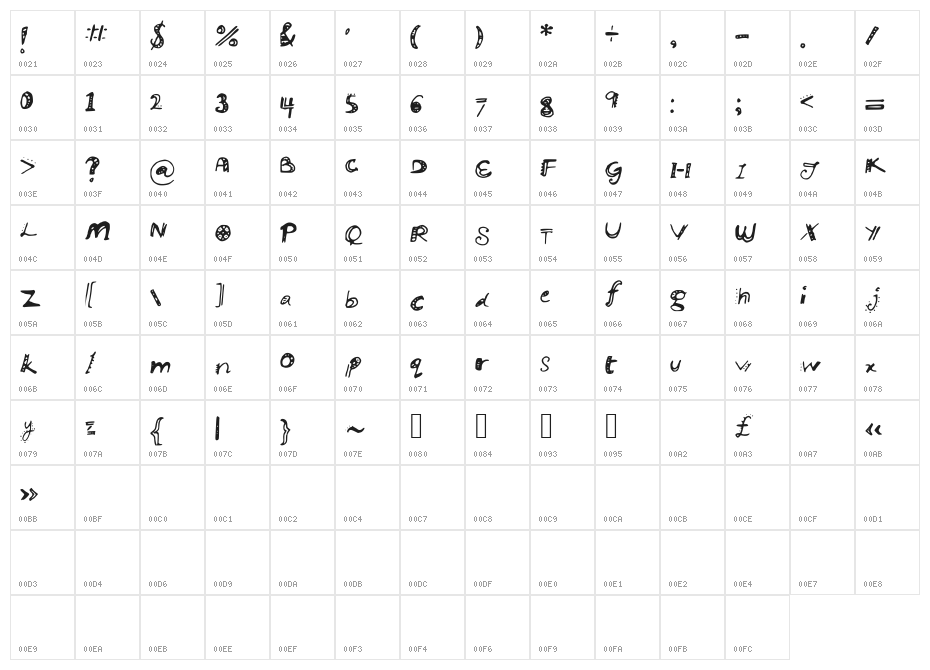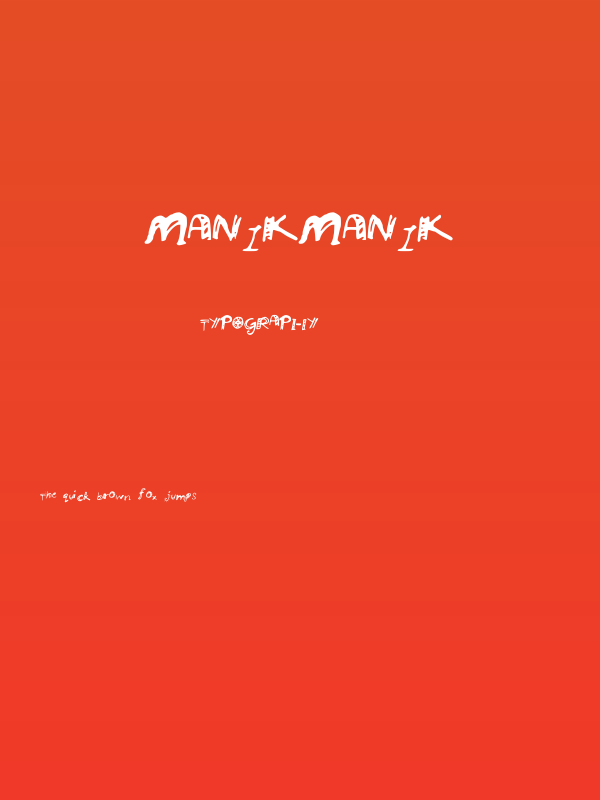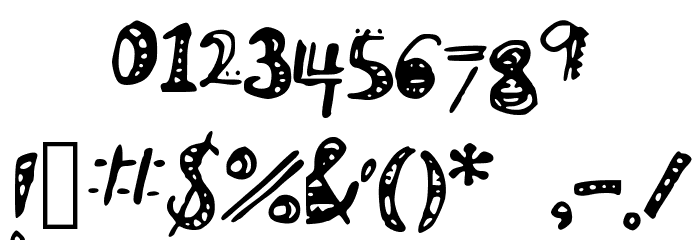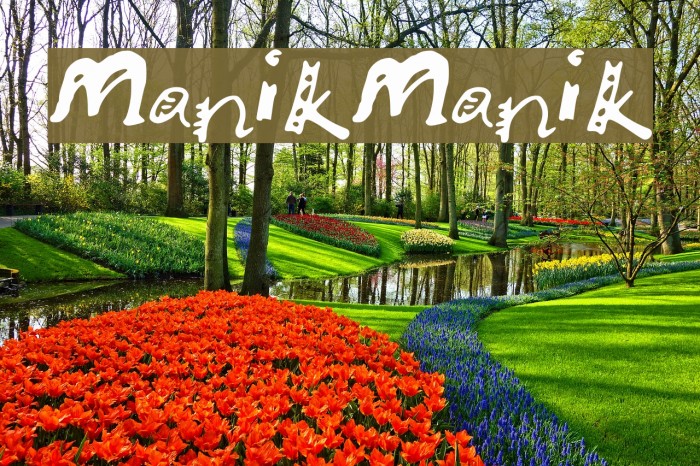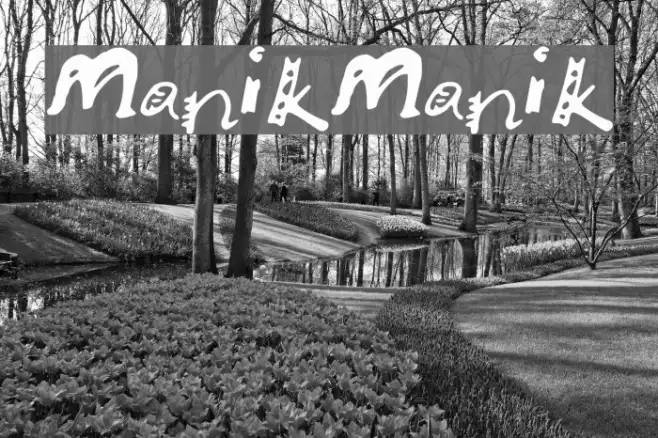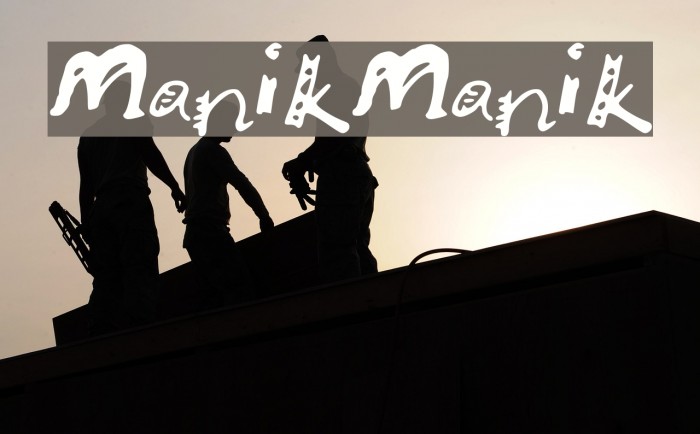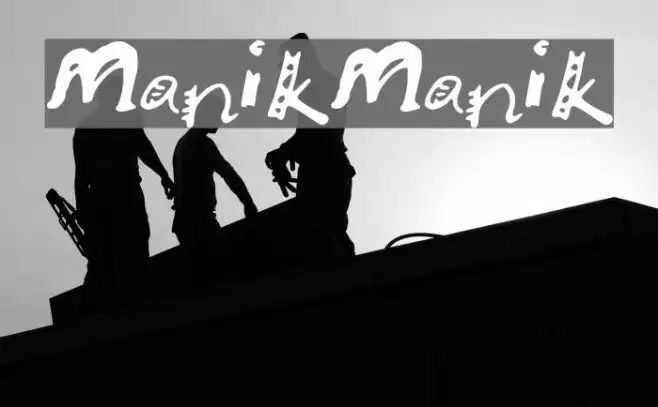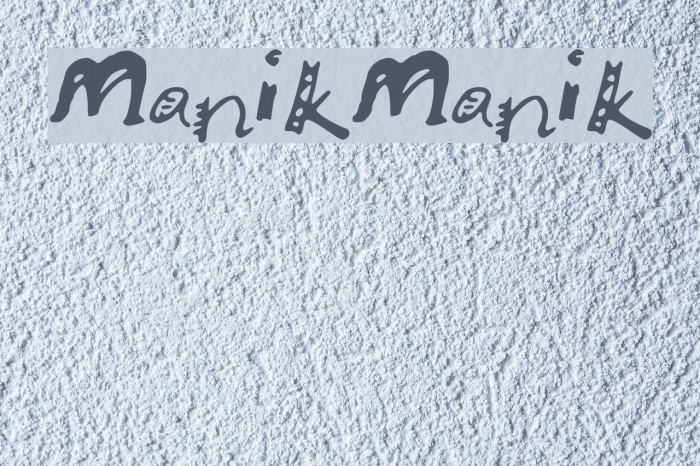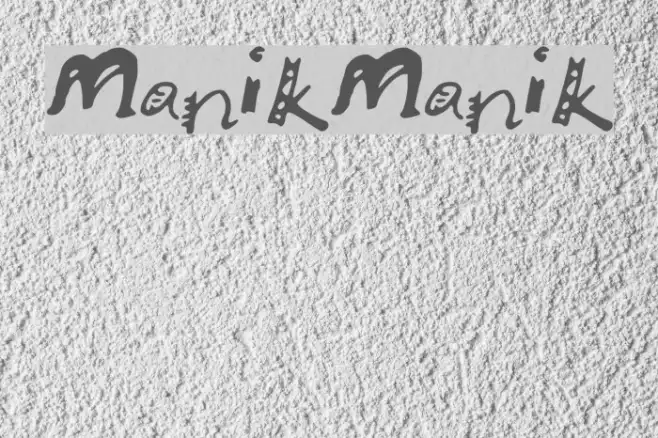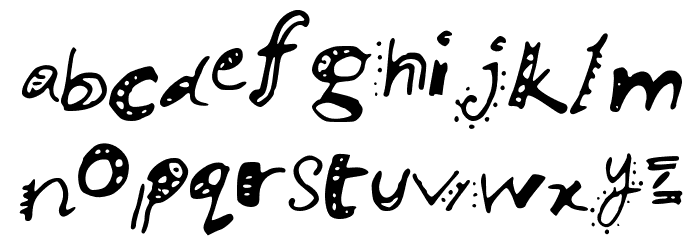
ManikManik Font
ManikManik Description
This font features a playful and whimsical design, characterized by its irregular shapes and decorative elements. Each letter is unique, with some incorporating dots, stripes, or other embellishments that add to its quirky charm. The font has a hand-drawn feel, with varying stroke widths that contribute to its dynamic appearance. The uppercase and lowercase letters maintain a consistent style, while the numbers and special characters are equally expressive, making it suitable for creative and informal projects.
MANIKMANIK UPPERCASE
MANIKMANIK LOWERCASE
MANIKMANIK OTHER CHARS
| Overall Style | Whimsical, Playful, Hand-drawn |